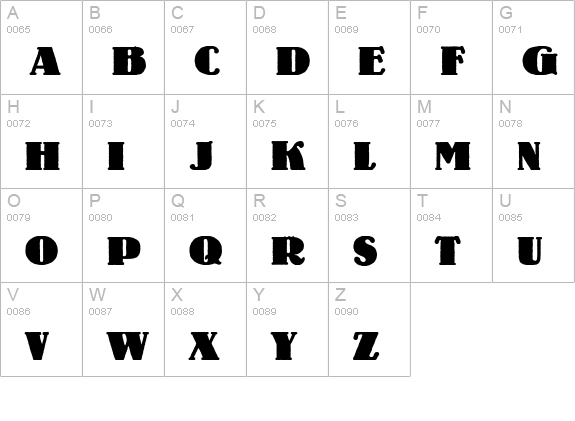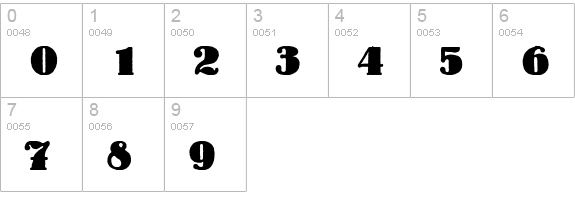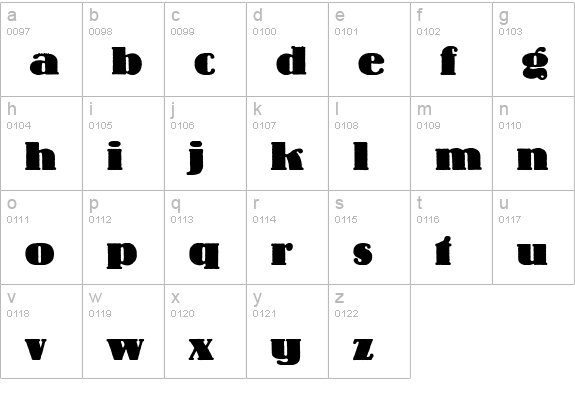
Louis-Heavy-Regular Font Details
Louis-Heavy-Regular is a heavy, high-impact variant in the Louis typeface family \xE2\x80\x94 well suited to high-impact headlines, posters, and display advertising.
Louis-Heavy-Regular is a striking and versatile font that exudes a sense of strength and boldness. With its thick strokes and clean lines, this font is ideal for making a powerful statement in your designs. Whether you are creating posters, logos, or headlines, Louis-Heavy-Regular is sure to catch the eye and leave a lasting impression. The best part? Louis-Heavy-Regular is available for free download at FontsMarket.com. This means you can easily access this high-quality font and use it in your projects without any cost. Don't miss out on the opportunity to enhance your designs with the impactful style of Louis-Heavy-Regular. Download it today and take your creative work to the next level.